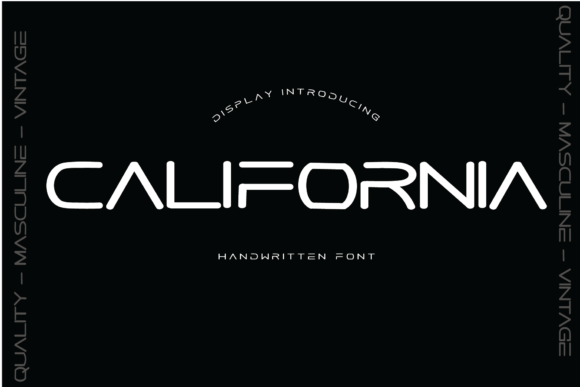
The Golden Touch: Elevate Your Design with California Font
You’re browsing through design inspiration boards, and suddenly, a beautifully crafted logo catches your eye. The elegant curves, the sophistication, and the luxury feel – it’s the perfect blend of style and sophistication. That’s what the California Font is all about, adding a touch of luxury to any design project.
California Font is an authentic, elegant typeface designed to elevate your design game. Its purpose is to add a sense of refinement and sophistication to your work, making it perfect for high-end branding, luxury packaging, and even editorial design. As a designer, you’re always on the lookout for unique and valuable tools to make your projects stand out, and the California Font is definitely one to consider.
California Font Key Features
- Font Family: California Font is a sans-serif font family designed for use in digital and print media.
- Unique Characteristics: Features a clean and modern design, with subtle rounded edges and a friendly feel, making it suitable for use in branding, advertising, and editorial content.
Designer Review: California Font
Overall, I’d say the California font is a solid choice for any project. It’s a clean, modern sans-serif font that’s easy to read, even at smaller sizes. ✨ One of the things I love about it is its versatility – it works well for both digital and print projects. Whether you’re creating a website, brochure, or social media graphics, California font is a great option.
Here are some specific things that I think work well:
- Legibility: As I mentioned earlier, California font is easy to read, even at small sizes.
- Versatility: It works well for both digital and print projects.
- Neutral tone: The font has a neutral tone that won’t distract from the content.
- Lack of personality: While the font is clean and modern, it may not stand out in a crowded market.
- No bold or italic variants: While the font is available in multiple weights, there are no bold or italic variants available.
Overall, I think the California font is a solid choice for any project. While it may not be the most exciting font out there, it’s reliable, easy to read, and versatile. ✨
Tips for Getting the Most Out of California Font
To get the most out of California Font, use it for:
- Casual, laid-back designs
- Summer-themed projects
- Outdoor-inspired graphics
California Font is commonly used for:
- Beach-themed party invitations
- Summer-themed social media graphics
- Casual blog posts and articles